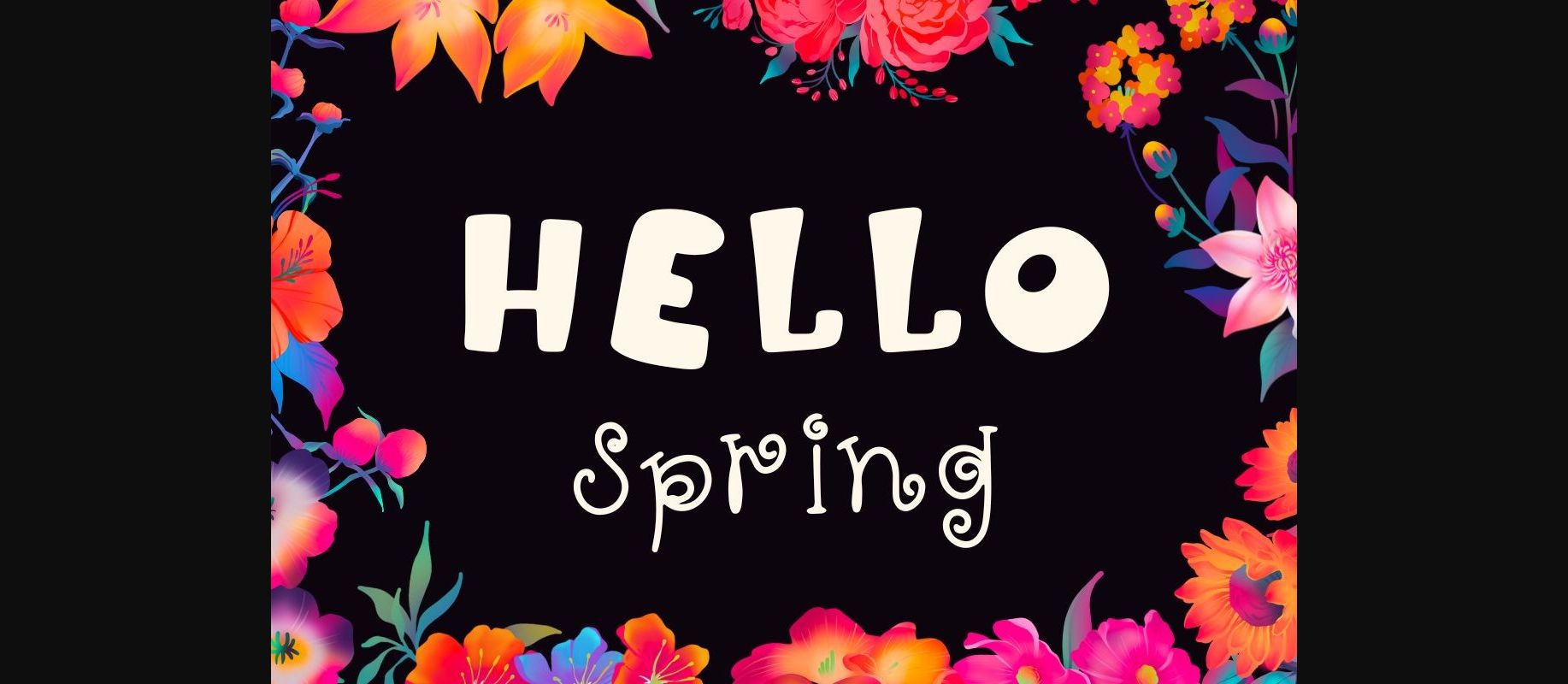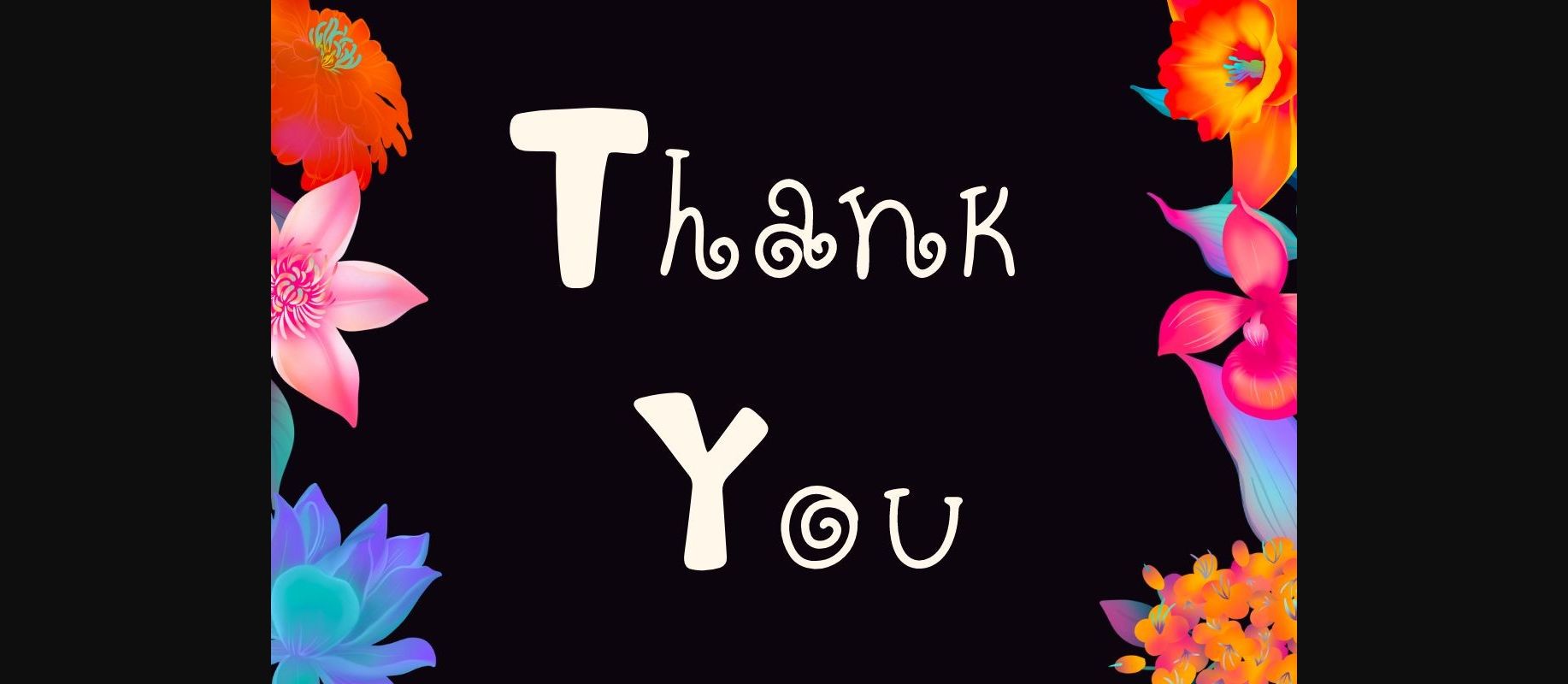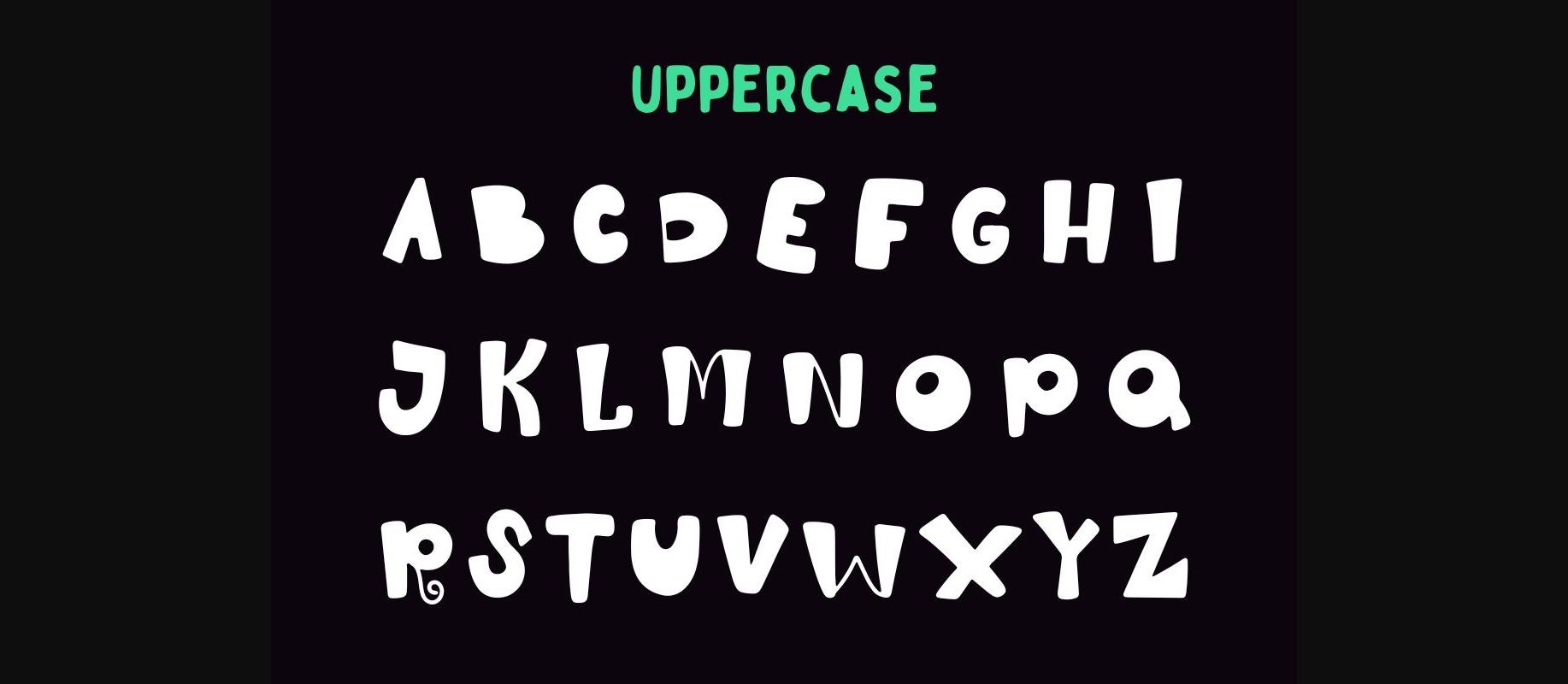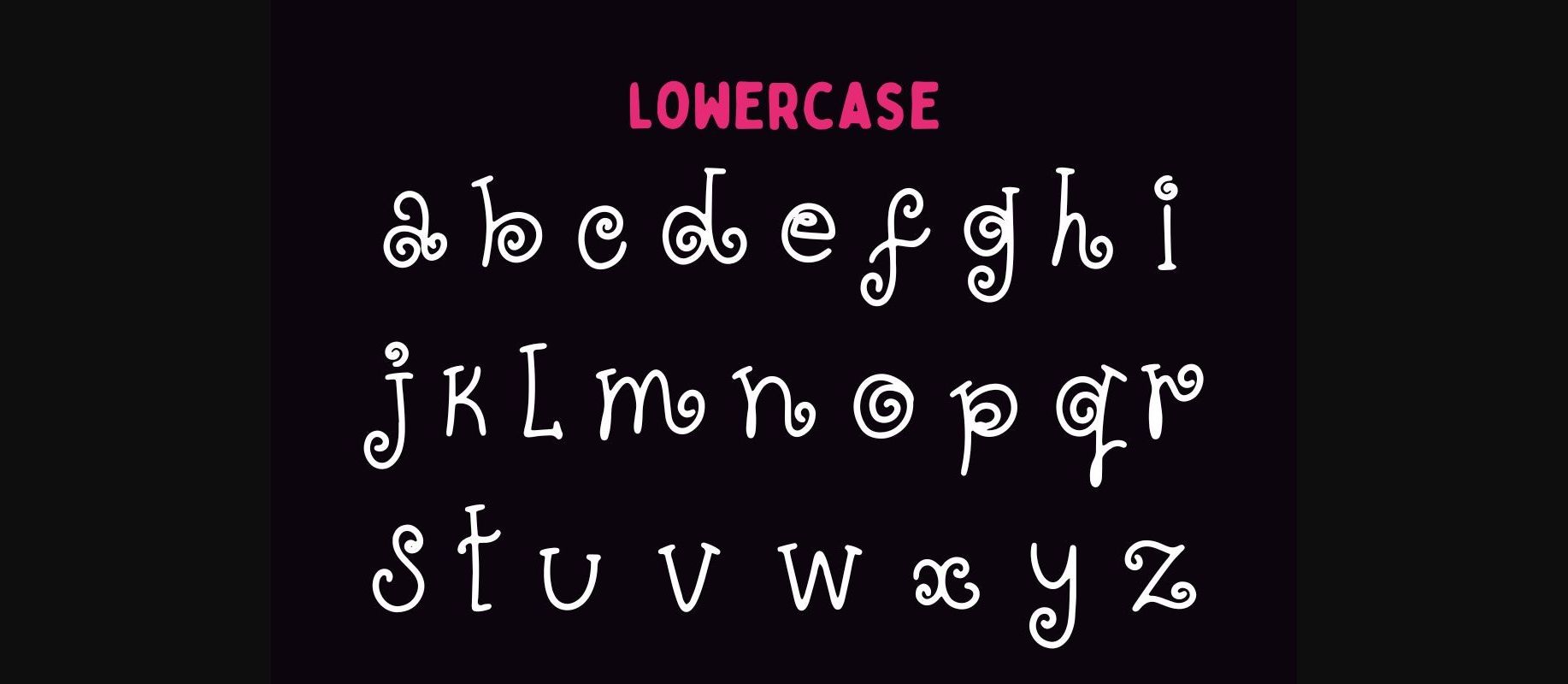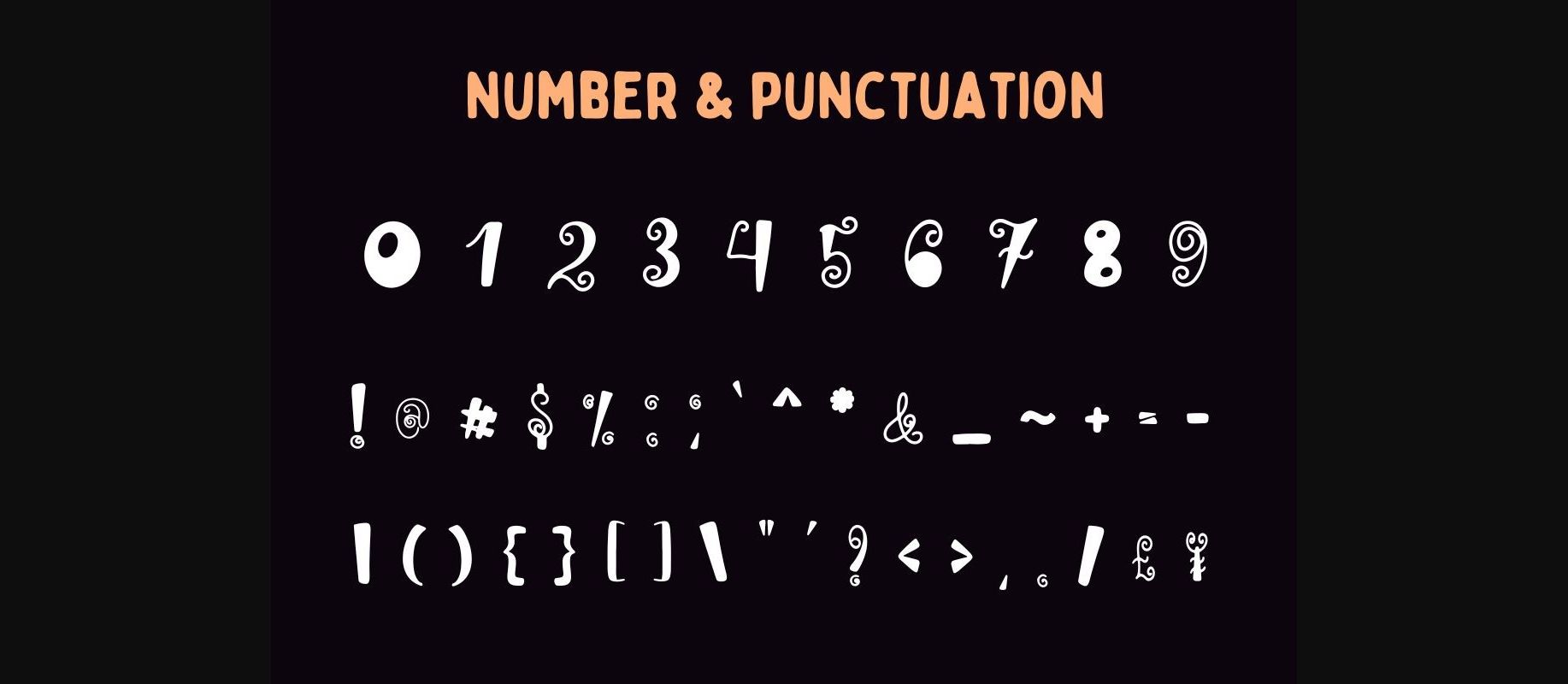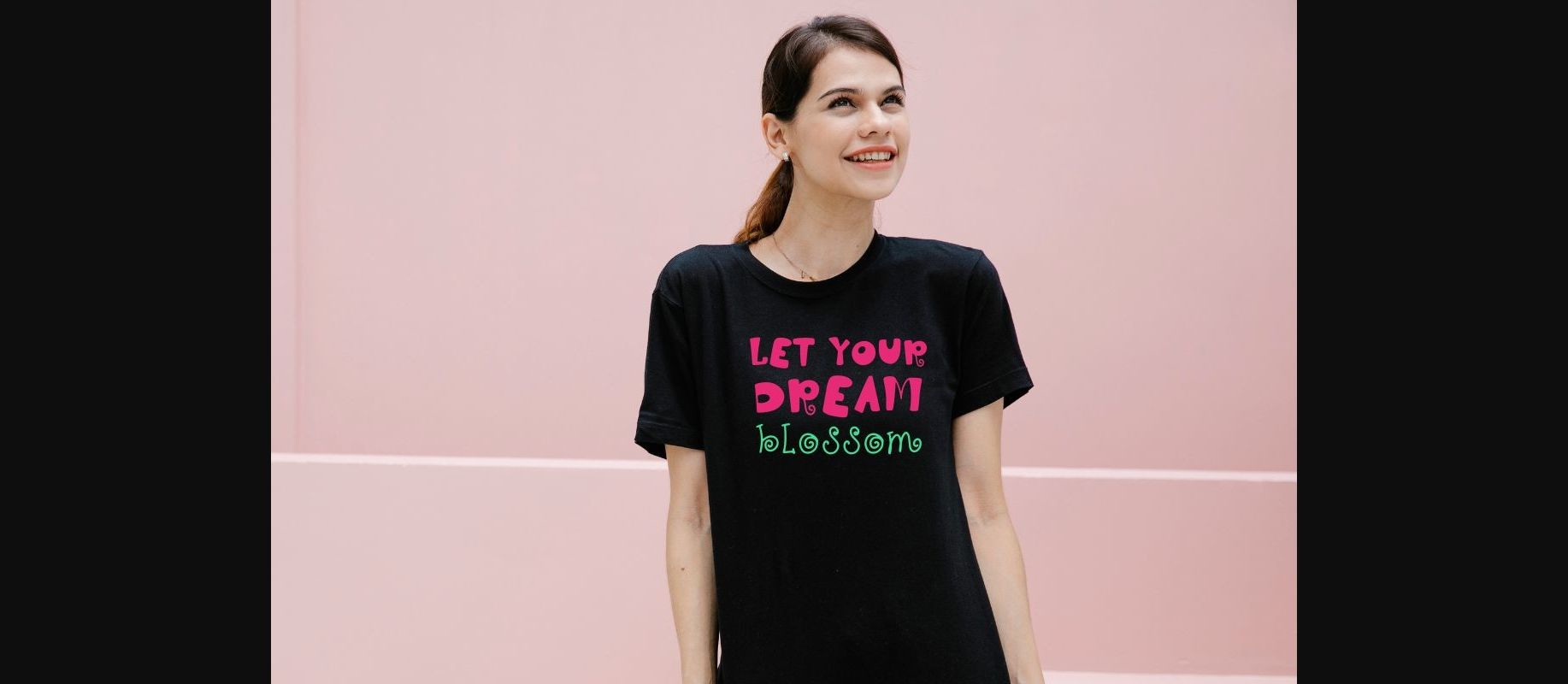
Hello Spring Font
About Hello Spring Font
Hello spring is a fresh and fun decorative font. It is the perfect font for titles or words needing a more dramatic emphasis. Whatever the topic, this font will be a wonderful asset to your font library, as it has the potential to enhance any creation